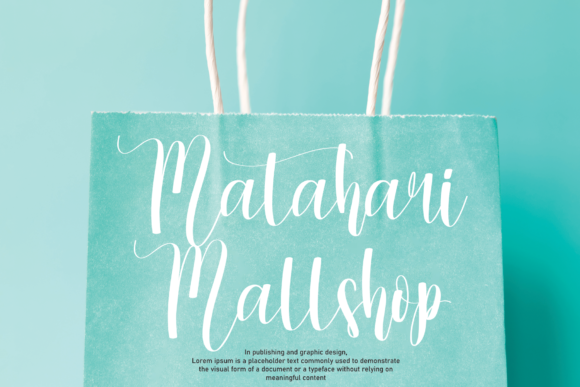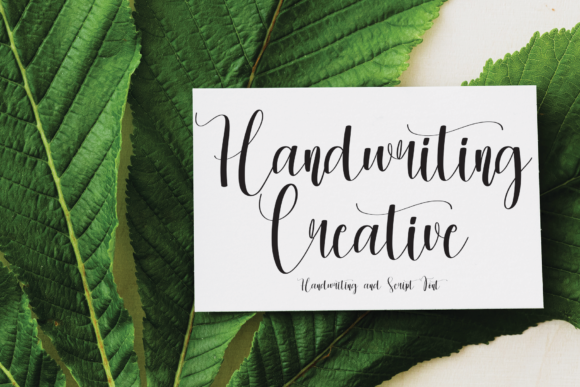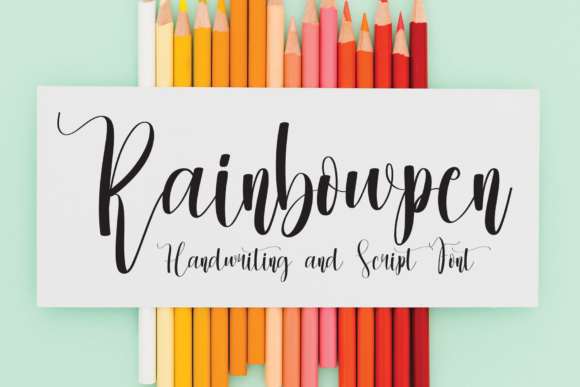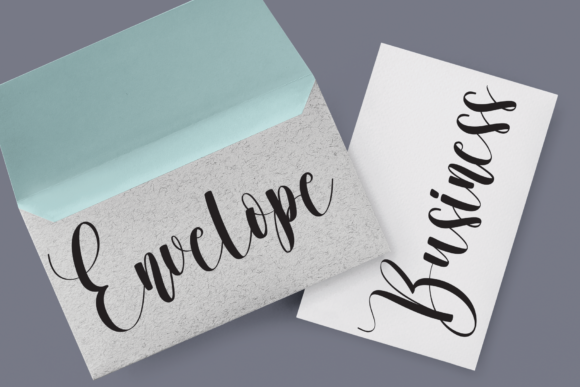
Introducing Christmas Valentine Font: The Perfect Addition to Your Design Projects
Are you looking for a font that exudes love, joy, and festivity? Look no further than the Christmas Valentine Font, a beautiful handwriting and script font that is perfect for a variety of design projects. In this article, we’ll take a closer look at the features and benefits of this stunning font, and explore how it can elevate your designs.
What is Christmas Valentine Font?
Christmas Valentine Font is a handwriting and script font that is designed to capture the essence of love, joy, and festivity. With its beautiful and elegant lettering, this font is perfect for creating stunning designs that are sure to impress. Whether you’re working on a logo, branding project, kid’s clothes, t-shirt design, product packaging, or quotes, Christmas Valentine Font is the perfect choice.
Key Features of Christmas Valentine Font
So, what makes Christmas Valentine Font so special? Here are some of its key features:
- Beautiful Handwriting and Script: Christmas Valentine Font features beautiful handwriting and script lettering that is elegant, refined, and perfect for a variety of design projects.
- High-Quality Design: The font is designed with high-quality and precision, ensuring that it looks great in any size or format.
- Easy to Read: The font is easy to read, making it perfect for use in quotes, posters, and other designs where readability is important.
- Versatile: Christmas Valentine Font is versatile and can be used for a wide range of design projects, from logos and branding to kid’s clothes and product packaging.
Benefits of Using Christmas Valentine Font
So, why should you choose Christmas Valentine Font for your design projects? Here are some of the benefits of using this amazing font:
- Save Time: With Christmas Valentine Font, you can create stunning designs in no time. The font is easy to use and comes with a range of features that make designing a breeze.
- Stand Out from the Crowd: The unique and elegant lettering of Christmas Valentine Font will help your designs stand out from the crowd and grab attention.
- Perfect for Festive Designs: As the name suggests, Christmas Valentine Font is perfect for festive designs, including Christmas and Valentine’s Day-themed projects.
- Great for Kid’s Designs: The font’s playful and fun design makes it perfect for kid’s designs, including kid’s clothes, t-shirt design, and more.
Design Ideas Using Christmas Valentine Font
Here are some design ideas to get you started with Christmas Valentine Font:
- Christmas Cards and Invitations: Use Christmas Valentine Font to create stunning Christmas cards and invitations that are sure to impress.
- Valentine’s Day Designs: Create beautiful Valentine’s Day designs, including posters, social media graphics, and more.
- Kid’s Clothes and Accessories: Design fun and playful kid’s clothes and accessories, including t-shirts, hats, and more.
- Product Packaging: Use Christmas Valentine Font to create eye-catching product packaging that stands out on store shelves.
In conclusion, Christmas Valentine Font is a beautiful handwriting and script font that is perfect for a variety of design projects. With its elegant lettering, high-quality design, and versatility, this font is sure to become a favorite among designers and crafters. Whether you’re working on a festive design project or something else, Christmas Valentine Font is a great choice. So why wait? Download Christmas Valentine Font today and start creating stunning designs!